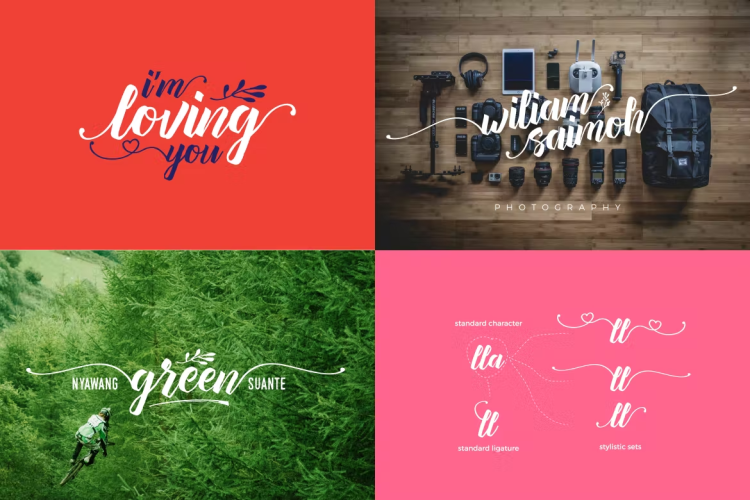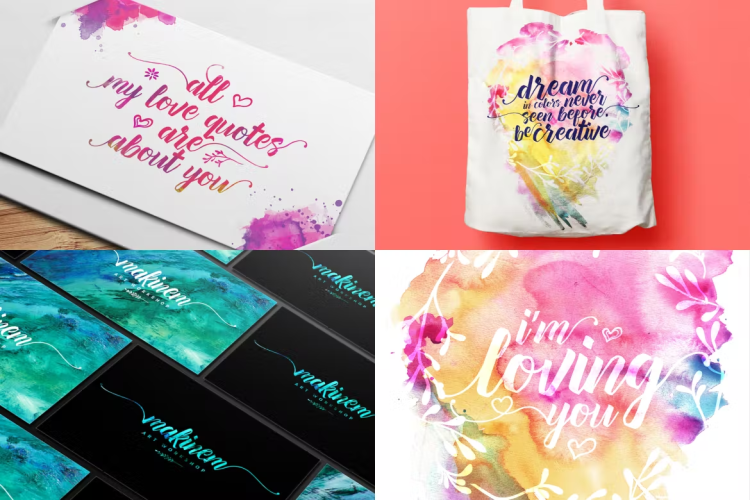
Hello Lary Font
Introducing Hello Lary! A lovely handmade typeface. Suitable for any design needs, modern invitation design, branding, blog design, modern advertising design, invitation…
Introducing Hello Lary! A lovely handmade typeface.
Suitable for any design needs, modern invitation design, branding, blog design, modern advertising design, invitation, Art Quote, Home decor, Book/Cover Title, Invitation, special events, birthday, custom mug, pillow, t-shirts, any brush lettering needs and more.
Hello Lary Typeface (.ttf and .otf) comes with upper and lowercase Standard Characters, Punctuation, Numerals. And other Glyphs variation of the OpenType features such as Standard Ligature and Stylistic Set. Stylistic Set are available for lowercase characters.
Where Hello Lary Font works best
Personal branding & signatures
Hello Lary Font adds an authentic, human signature to portfolios, coaching brands and creator logos.
Cards, journals & planners
Ideal for greeting cards, printable planners and scrapbook layouts.
Food & café menus
Handwritten styles like Hello Lary Font make menus and chalkboard-style signage feel friendly.
What is Hello Lary Font good for?
Hello Lary Font is a Handwriting Fonts typeface tagged Branding, Brush, Handwriting Fonts, Handwritten. It works well for headlines, logos, posters, social media graphics and branding projects that need a distinctive handwriting fonts look.